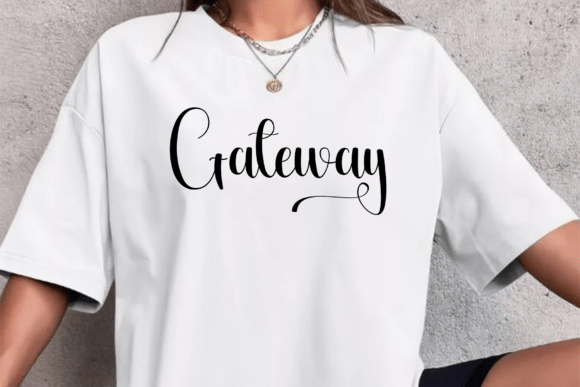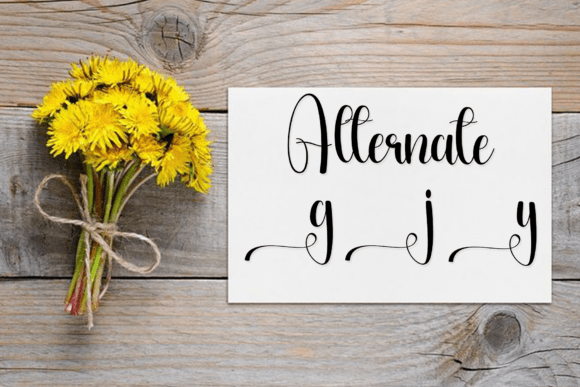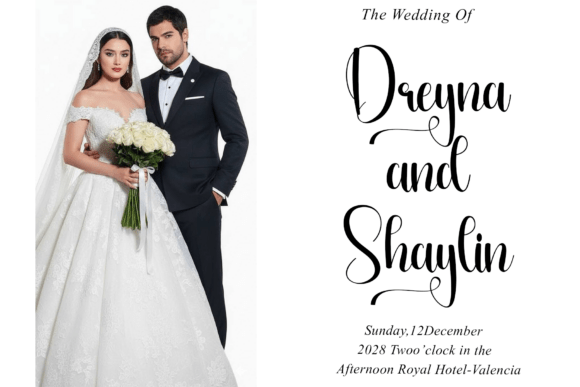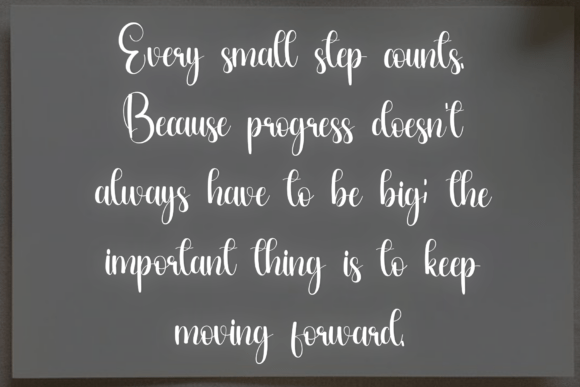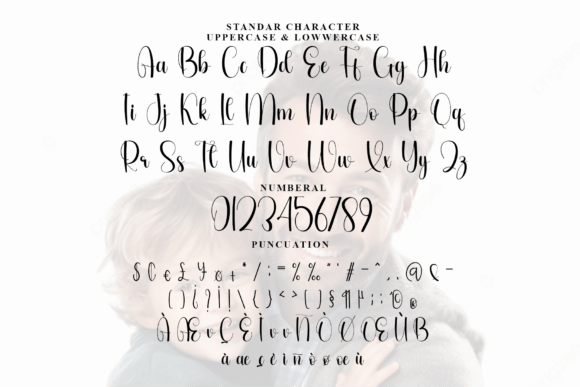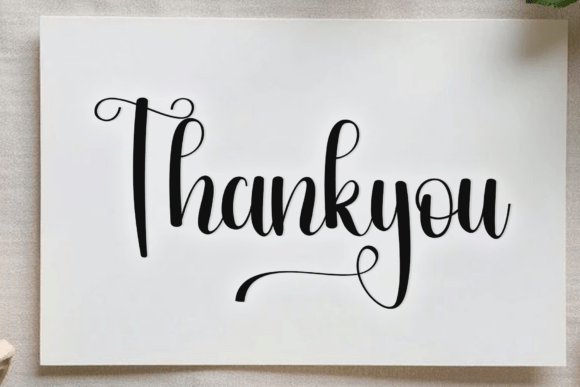
Introduction to Healty Font
Healty is a beautifully flowing and elegant modern handwritten script font.
Its smooth, generous curves and graceful, elongated strokes give it a sophisticated, signature look This professional and unique typeface is perfect for personal branding, photography watermarks, luxury wedding stationery, editorial design, and any project that requires a sweeping, authentic, and naturally luxurious touch.
Key Features of Healty Font